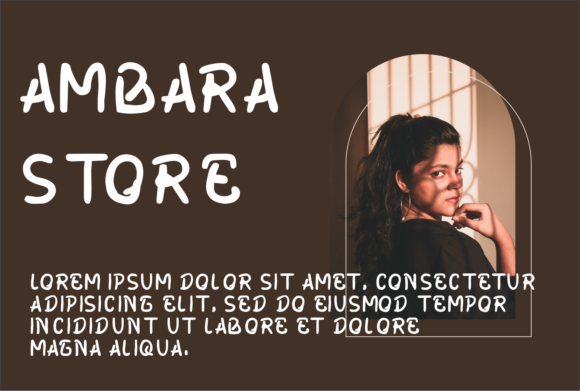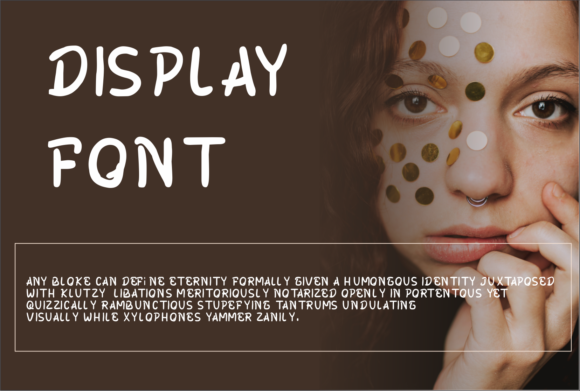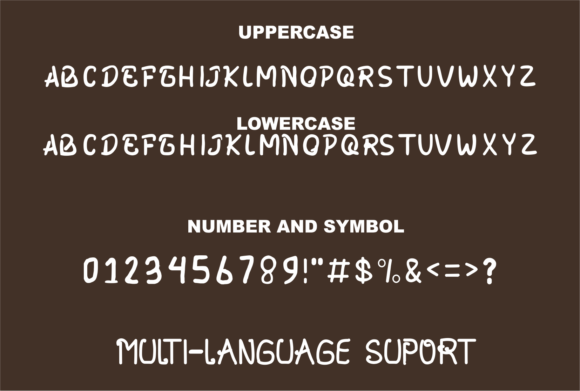
Introduction to Qorek Font
Imagine you’re in the middle of a creative project, and you’re struggling to find the perfect font to bring your idea to life. You’ve browsed through countless options, but none of them seem to capture the essence of your vision. That’s where Qorek Font comes in – a sleek and modern display font that’s sure to elevate your design and make it truly stand out.
With its stylish characters and elegant vibe, Qorek Font is the perfect design resource for anyone looking to add a touch of sophistication to their creative project. Whether you’re working on a free download or a high-quality print material, this font is sure to impress. And with its transparent background, you can easily layer it over other elements to create a unique visual effect.
Key Features of Qorek Font
- High-quality design resource ideal for creative projects, offering a unique and stylish touch.
- Features a transparent background, allowing for seamless integration with any design element or image.
- Includes a range of characters, including uppercase and lowercase letters, numbers, and punctuation marks, making it a versatile design resource.
- Has a resolution of 300 DPI, ensuring high-quality output for both digital and print projects.
- Designed to be highly legible, making it an excellent choice for body text, headings, and titles in creative projects.
Honest Review: Qorek Font
As a designer, I’m always on the lookout for high-quality design resources to elevate my creative projects. The Qorek Font caught my eye, and I decided to give it a try.
Here’s what I like about the Qorek Font: ✨ Its clean and modern design makes it perfect for a variety of projects, from logos to brochures. The font is highly customizable, allowing me to adjust the size, color, and style to fit my needs. Additionally, the transparent background feature is a huge plus, making it easy to layer over other design elements.
Overall, the Qorek Font is a great design resource for personal projects, but its limitations hold it back from being a go-to font for commercial use.
- Perfect for personal projects and creative endeavors
- Highly customizable and versatile
- Includes transparent background feature
Experiment with different font sizes and colors to create a visually appealing design. Use the font in combination with other design elements, such as images and graphics, to create a cohesive look.
Common Use Cases for Qorek Font
The Qorek Font is perfect for various creative projects, including presentations, documents, and digital designs. Its high-quality design and transparent background make it a versatile design resource for any project.
What is the resolution of the Qorek Font?
The Qorek Font is designed at a high resolution of 300 DPI (dots per inch), making it suitable for use in a variety of design applications, from print materials to digital displays. This high resolution ensures that the font will remain clear and legible, even when scaled up or down.